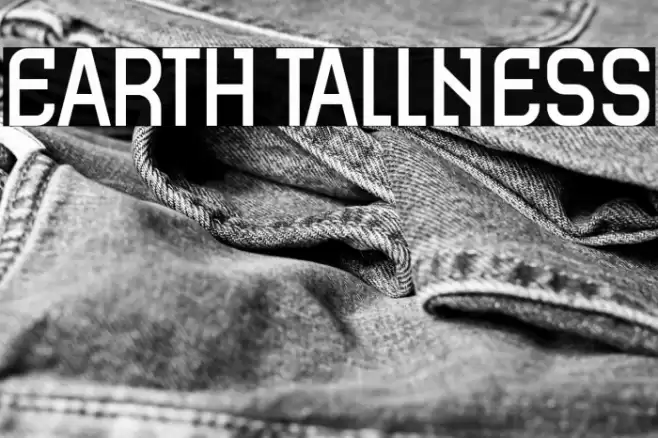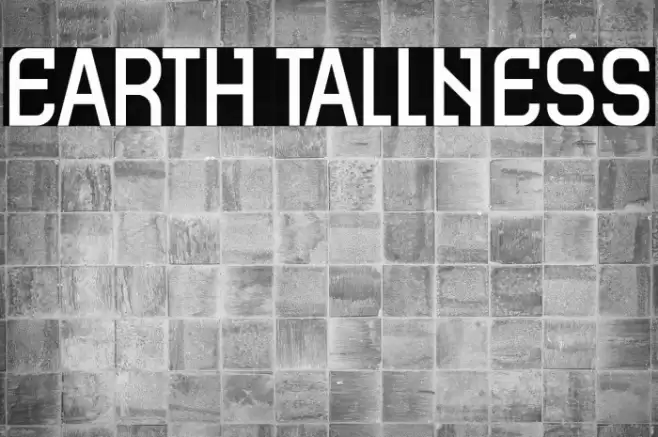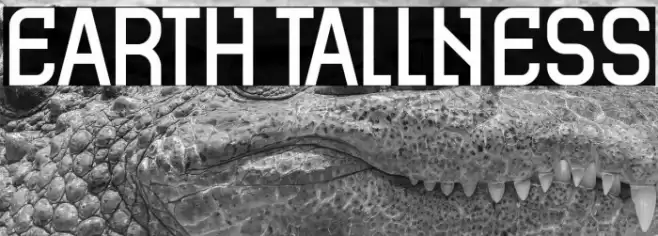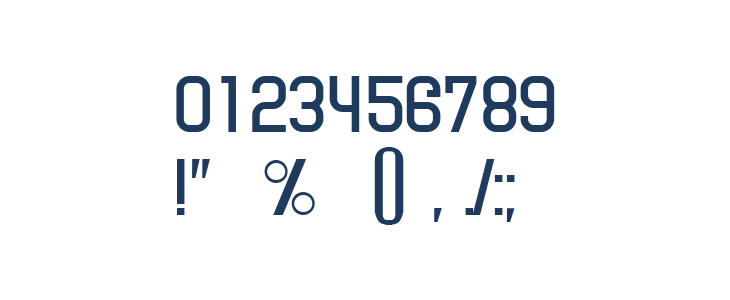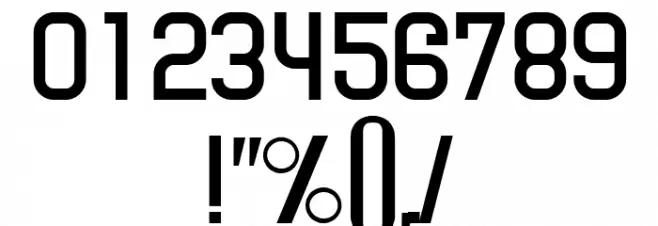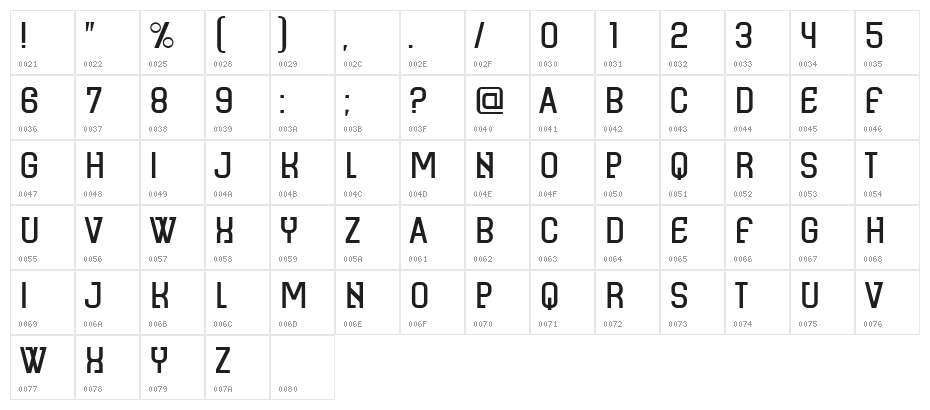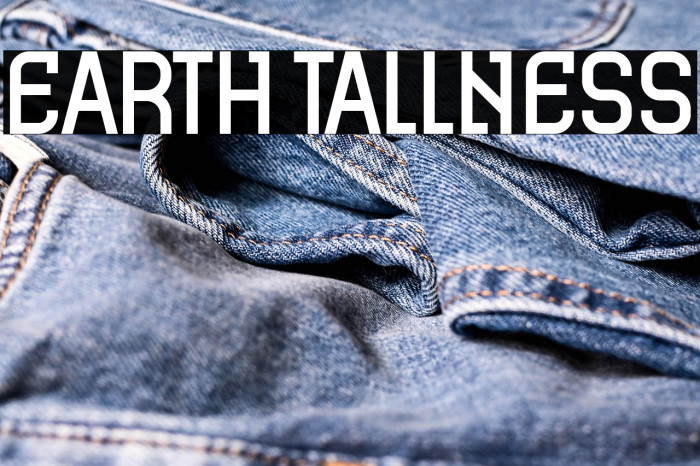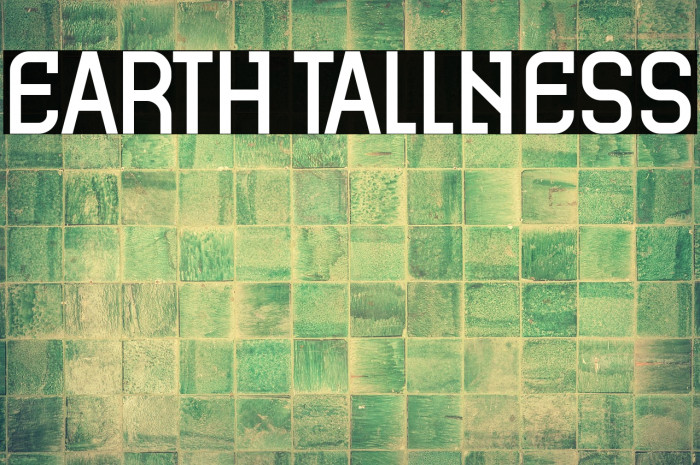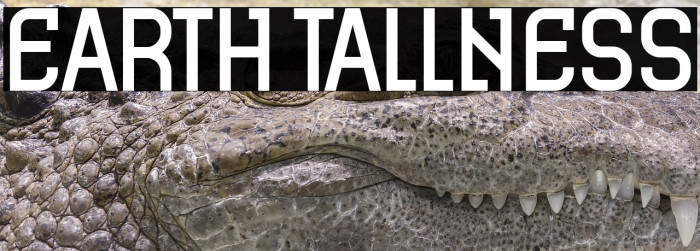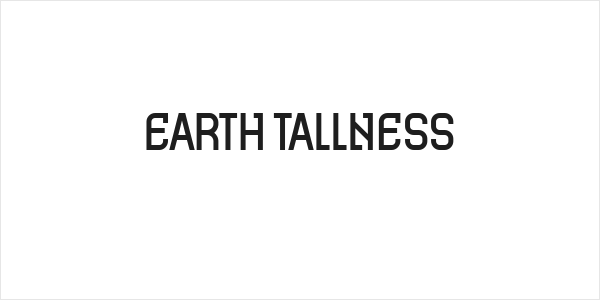
Earth Tallness Font
Earth Tallness Description
This font features a modern and geometric design with a tall, narrow structure. The characters are bold and have a consistent stroke width, giving them a strong and impactful appearance. The uppercase letters are particularly striking, with unique elements such as the crossbar of the 'A' and the distinctive shape of the 'Q'. The lowercase letters maintain the same geometric style, ensuring uniformity across the typeface. Numbers are clear and legible, with a similar boldness that makes them stand out. Special characters are well-integrated, maintaining the overall aesthetic of the font.
A modern, geometric font with tall, bold characters and consistent stroke width from Uncategorized fonts.
- Font: Earth Tallness
- Proposed Projects: Ideal for branding, posters, headlines, and any project requiring a strong, modern aesthetic.